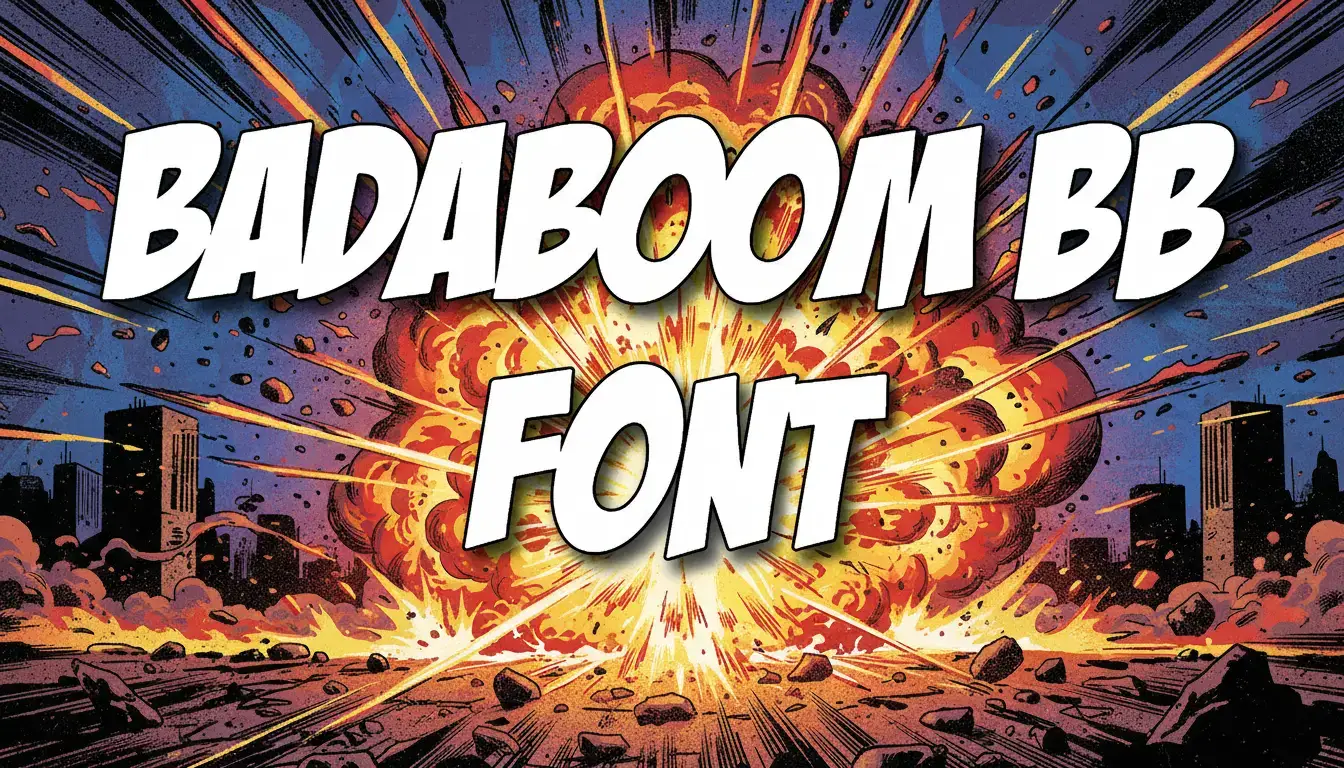
Badaboom BB Font
Badaboom BB is a fancy font. It's a decorative display font with plenty of personality, made to grab attention. It's a free download, and you can try it with your own text in the preview above first.
What You Can Type With Badaboom BB
You get every letter from A to Z in both cases and all the numbers from 0 to 9, which means Badaboom BB can handle full sentences, dates and prices. Common punctuation such as &, !, ? and @ is included as well. It doesn't include accented letters such as é or ñ, which makes it an English-only font.
Where Badaboom BB Works Best
Badaboom BB is a natural fit for posters, logos and eye-catching headlines. Use it for one standout word or headline and let simpler fonts handle the rest.
Does Badaboom BB support accented letters?
No. Badaboom BB has no accented letters such as é, ñ or ü, so it's best for English text.